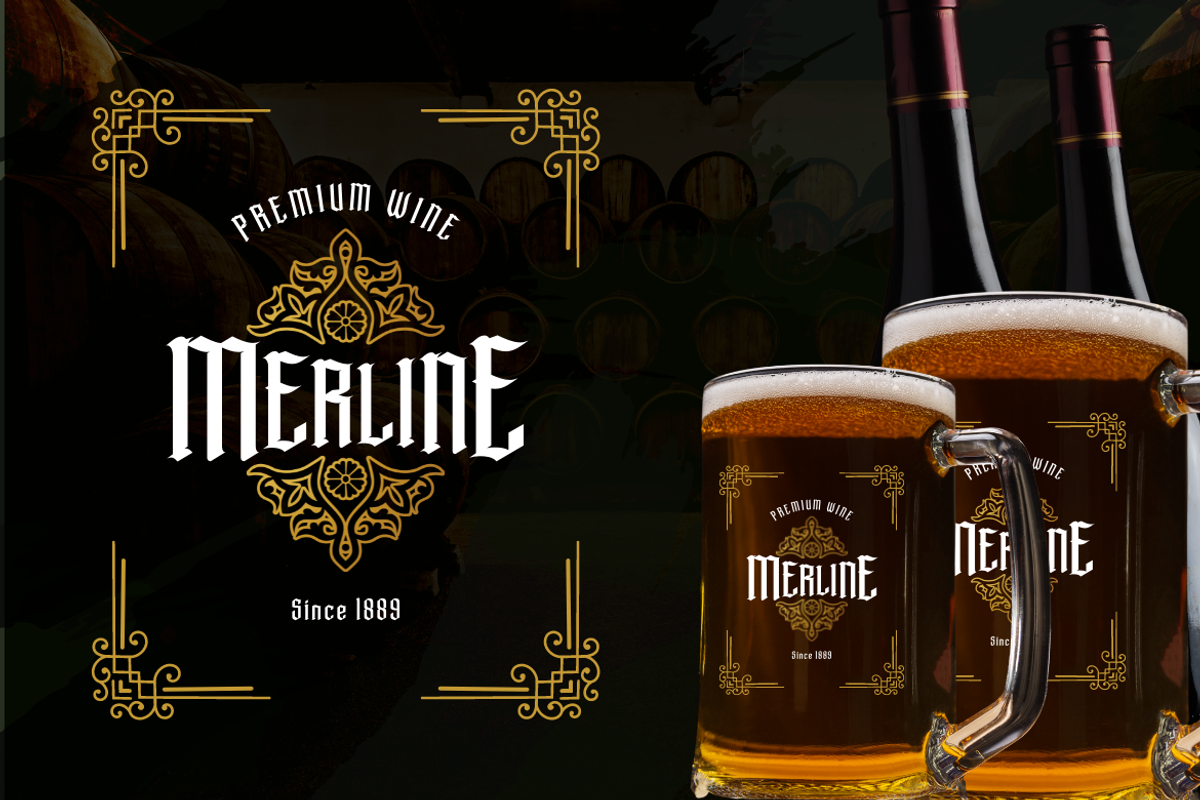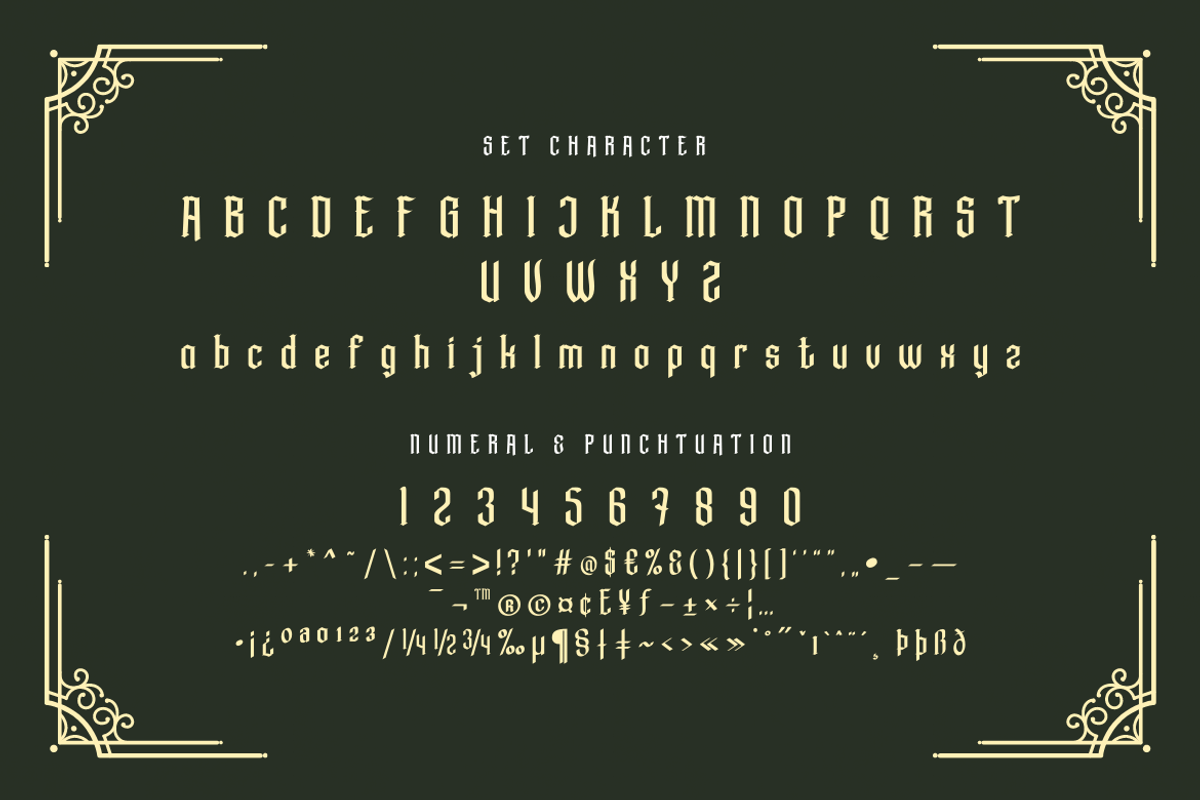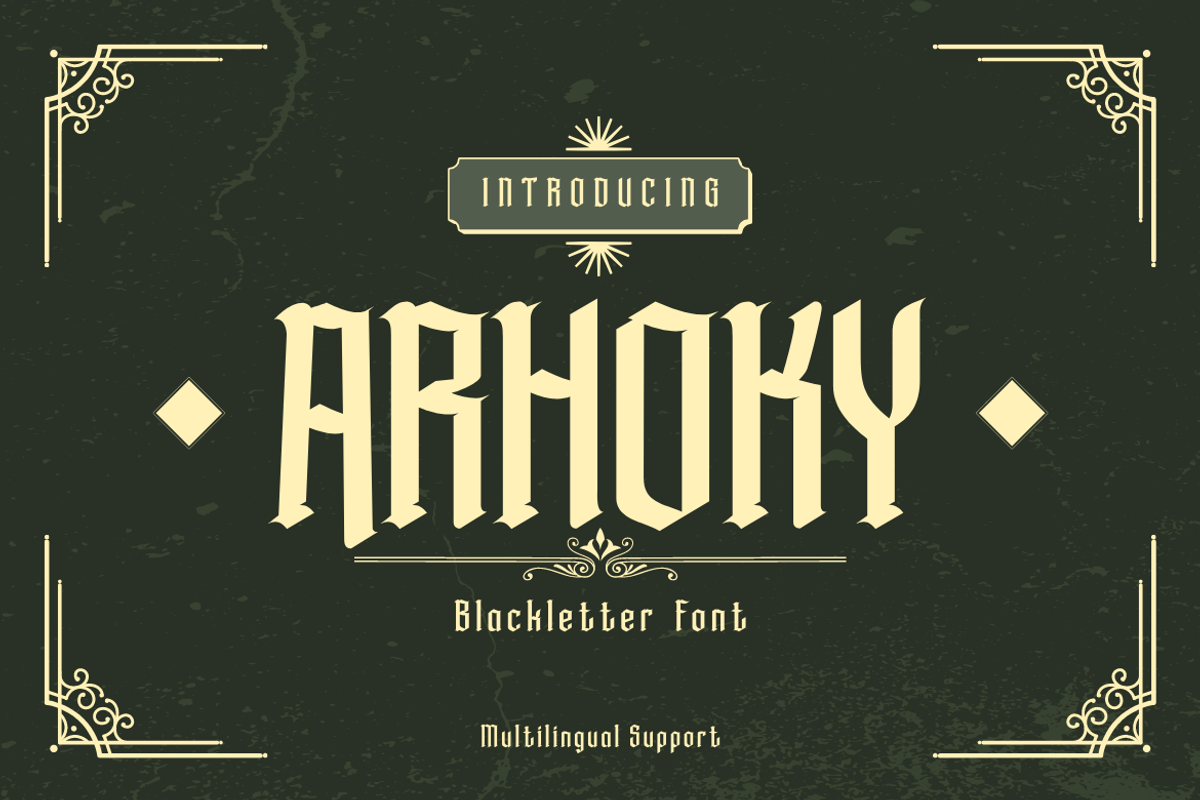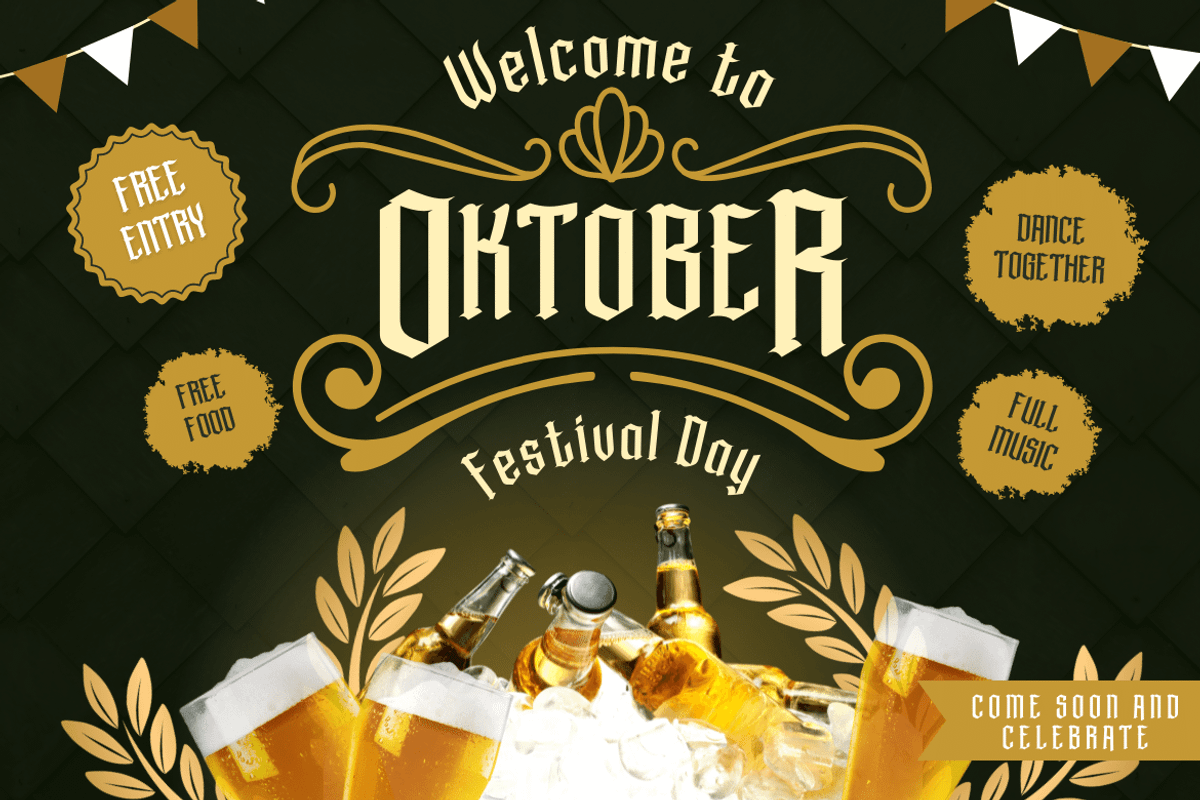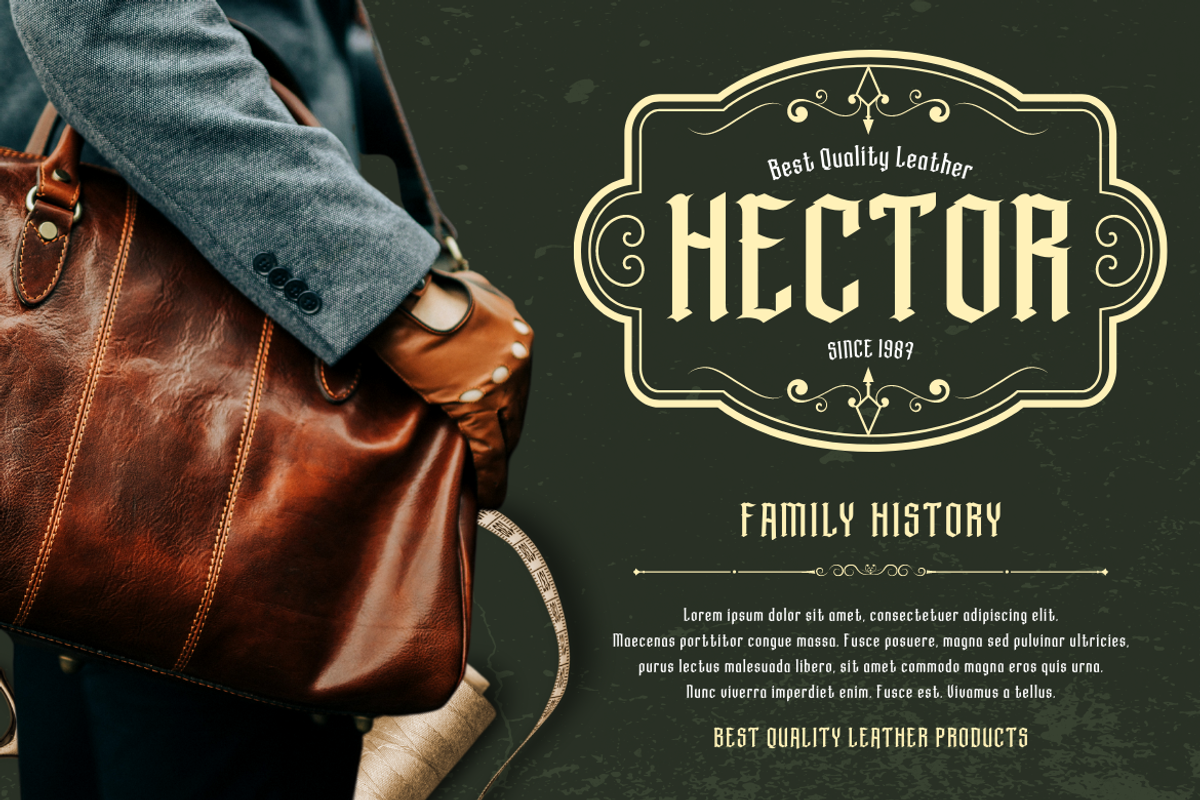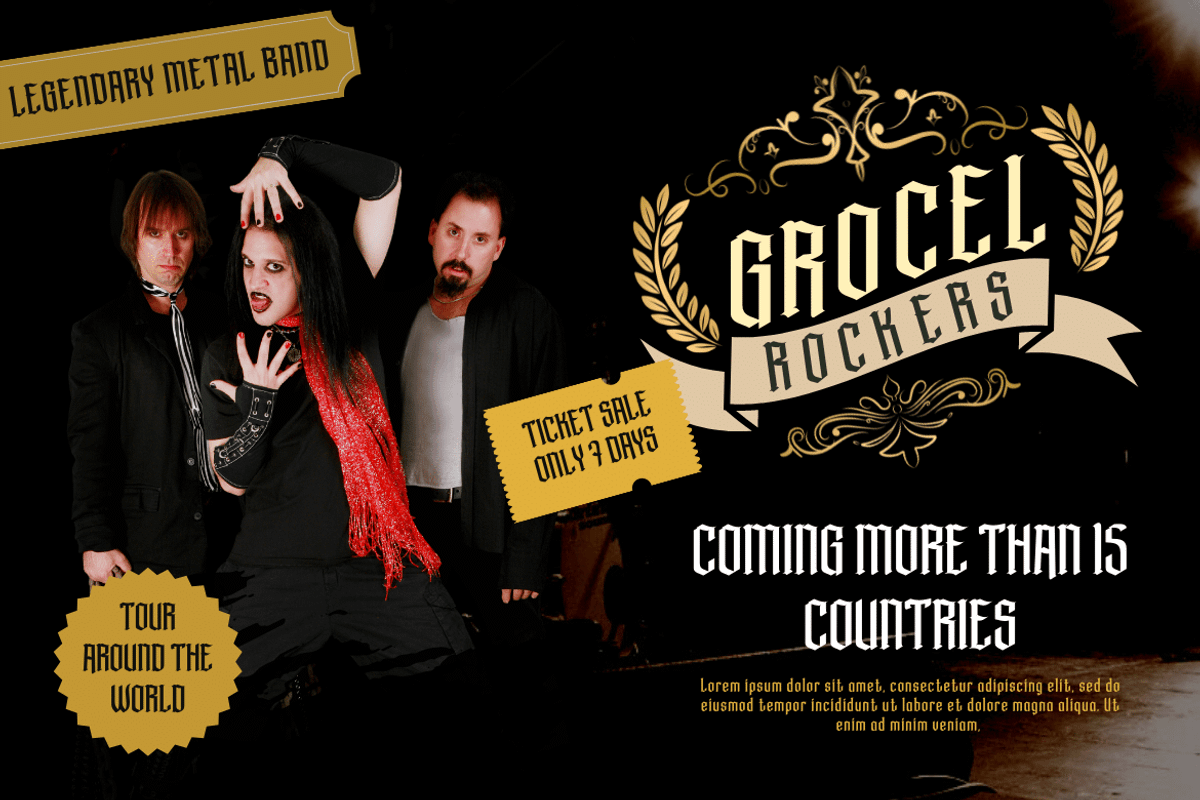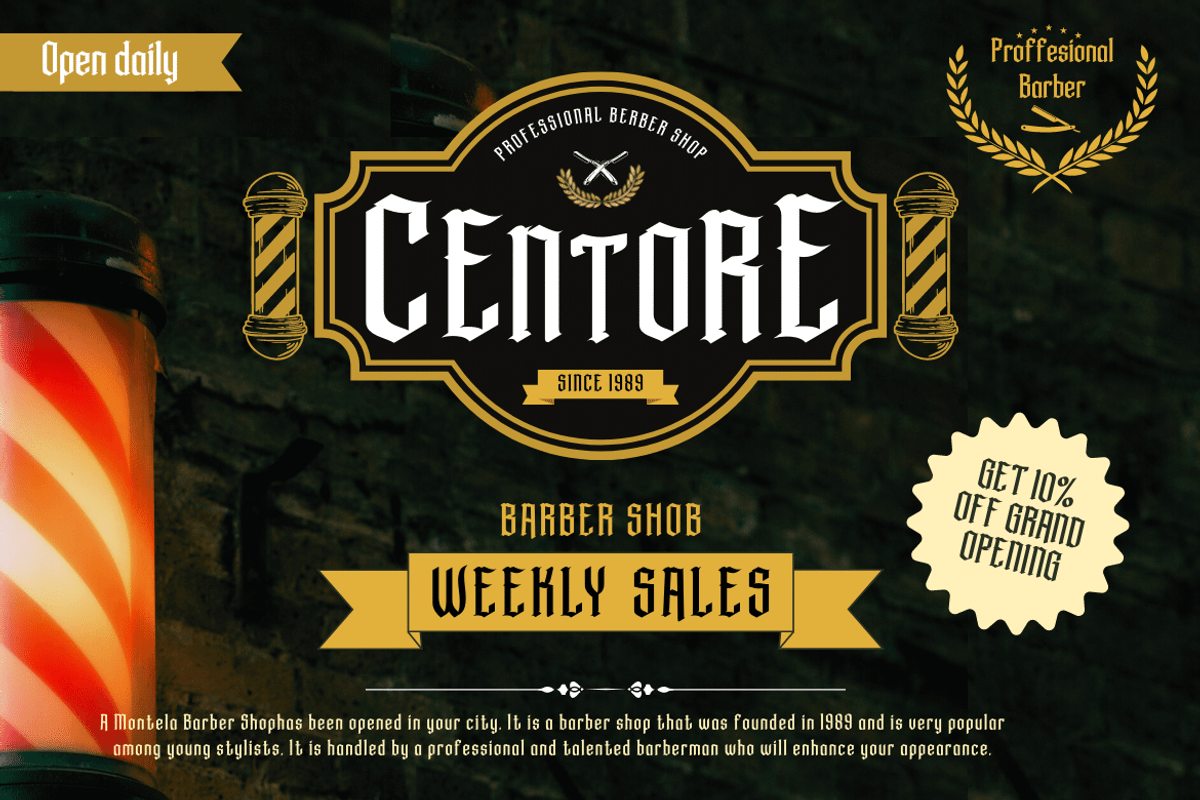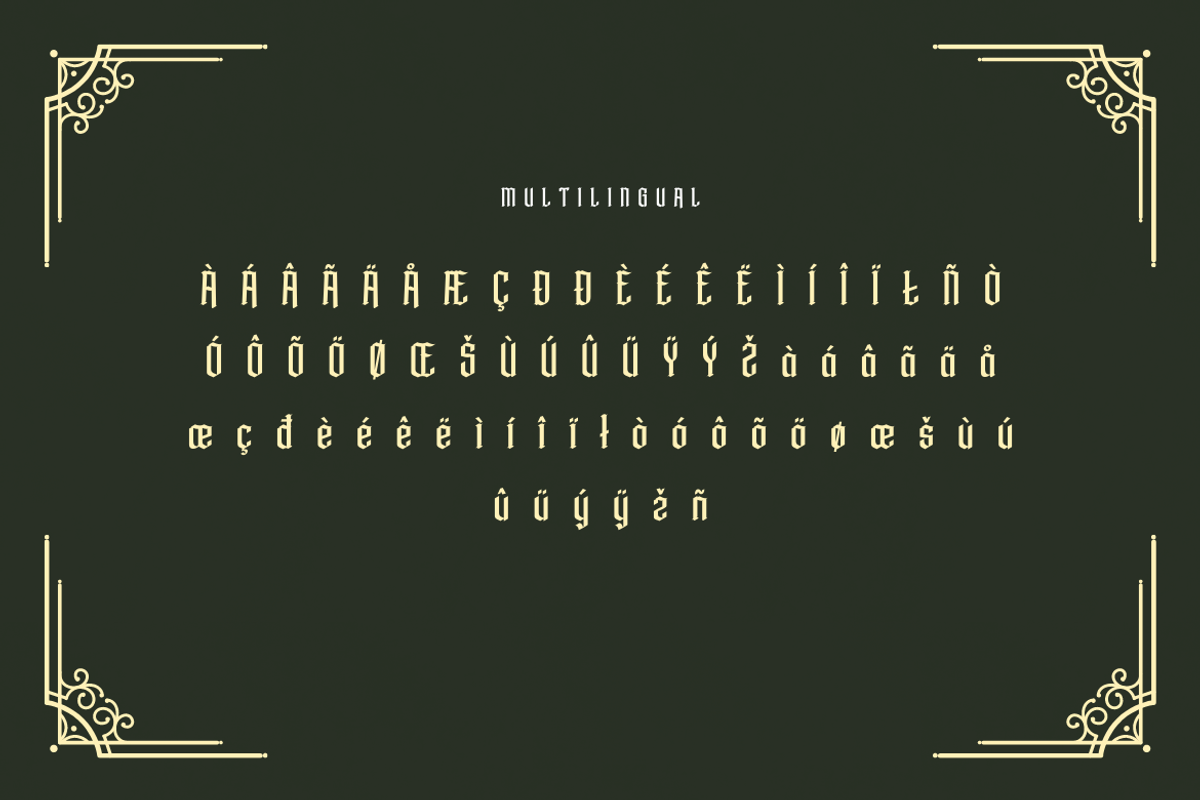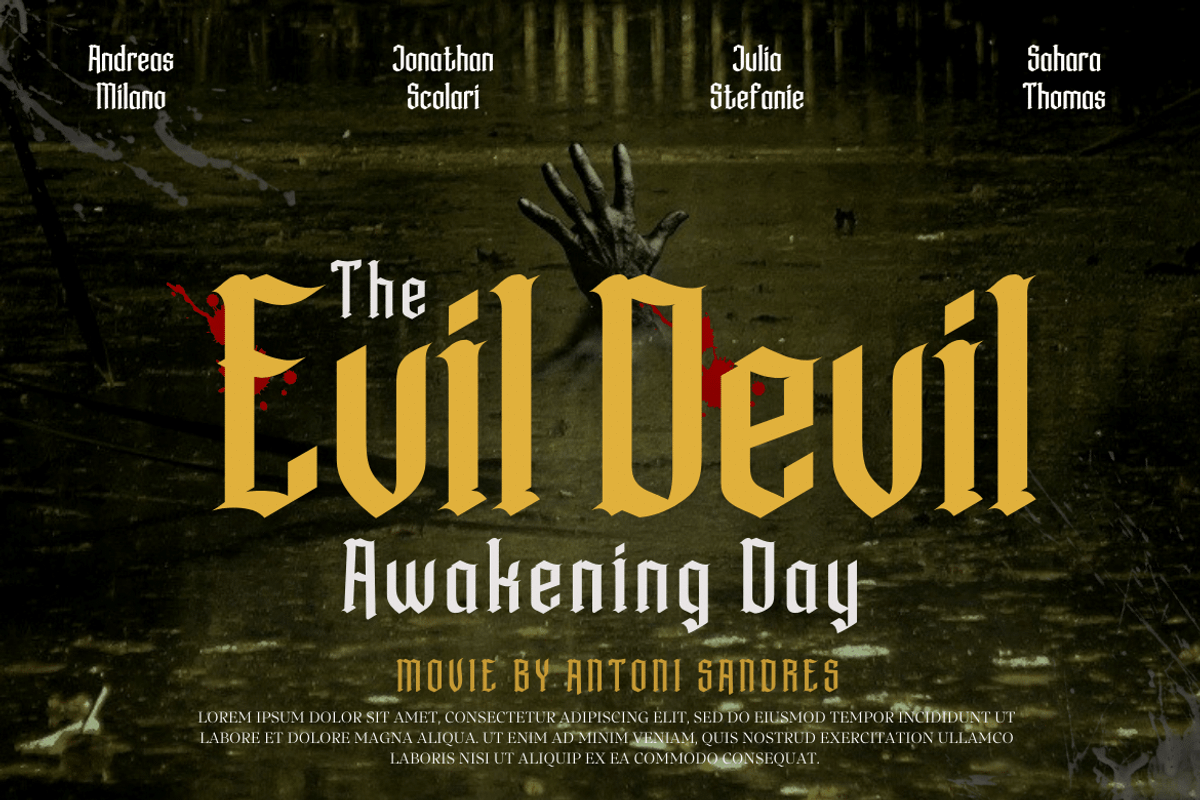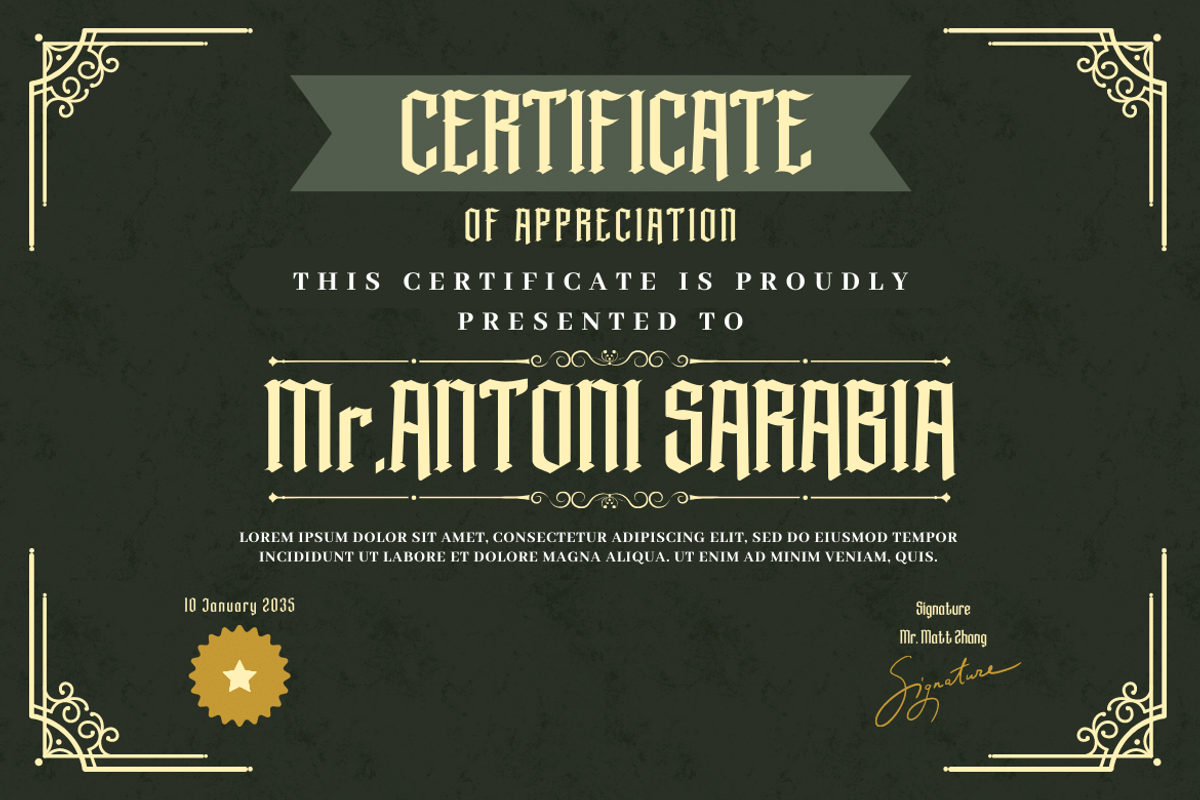
ARHOKY
If you are looking for a unique and unique gothic blackletter font that will set your project apart from the rest, look no further! ARHOKY is the perfect font for adding a touch of elegance to all kinds of creative work - including wedding invitations, tattoos, and packaging designs. Use it immediately to realize amazing projects!